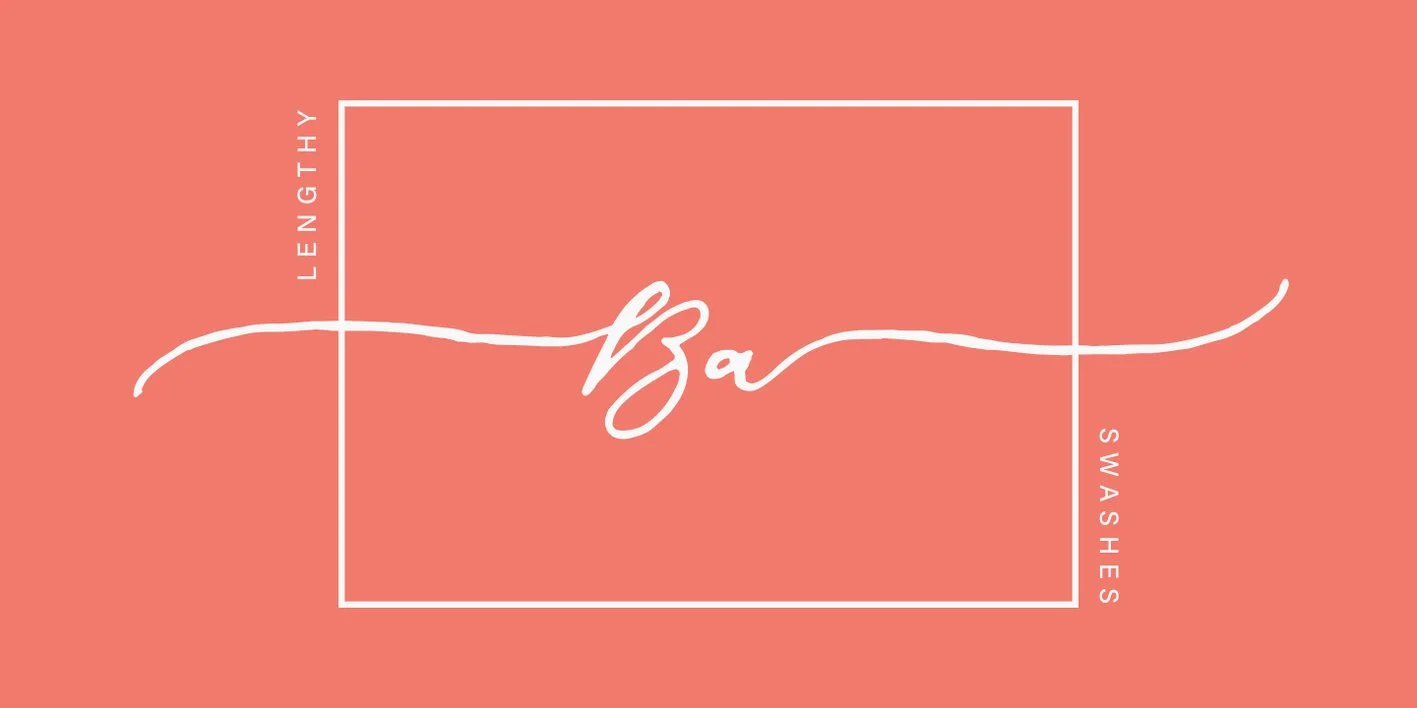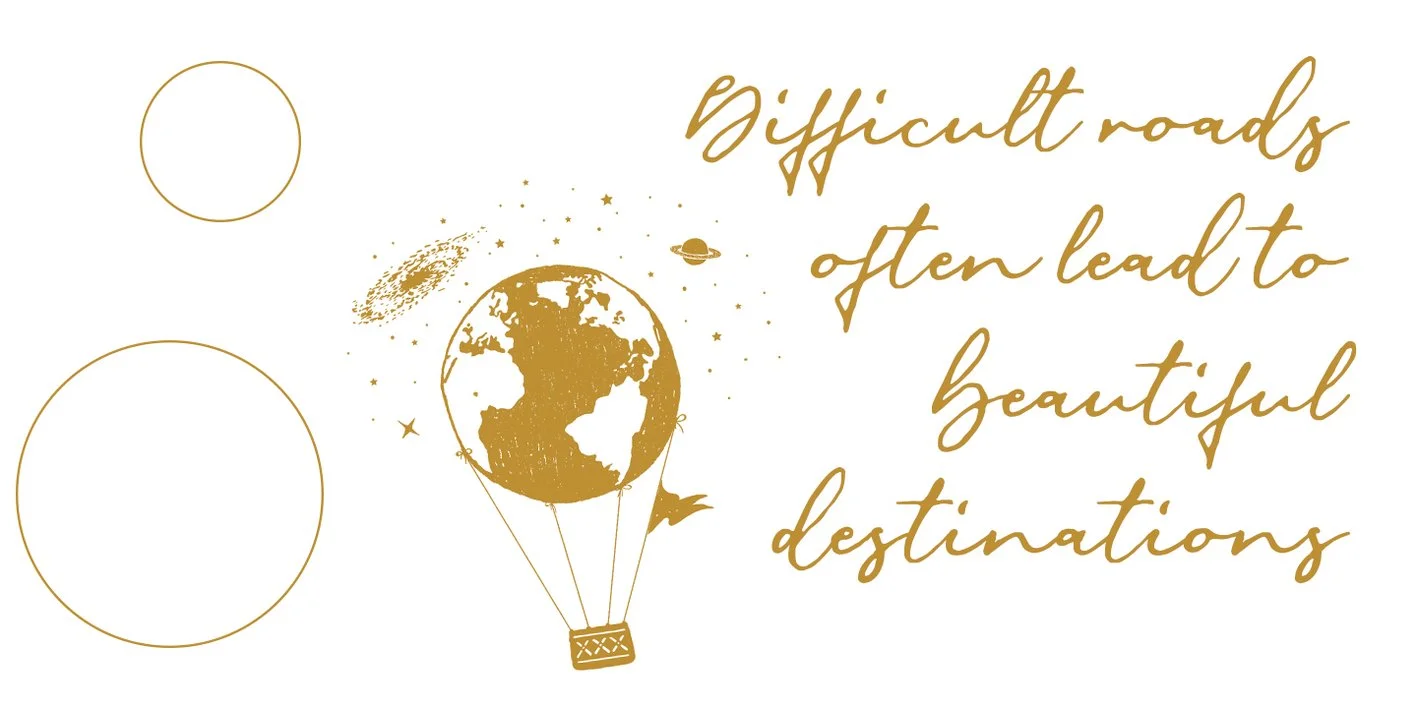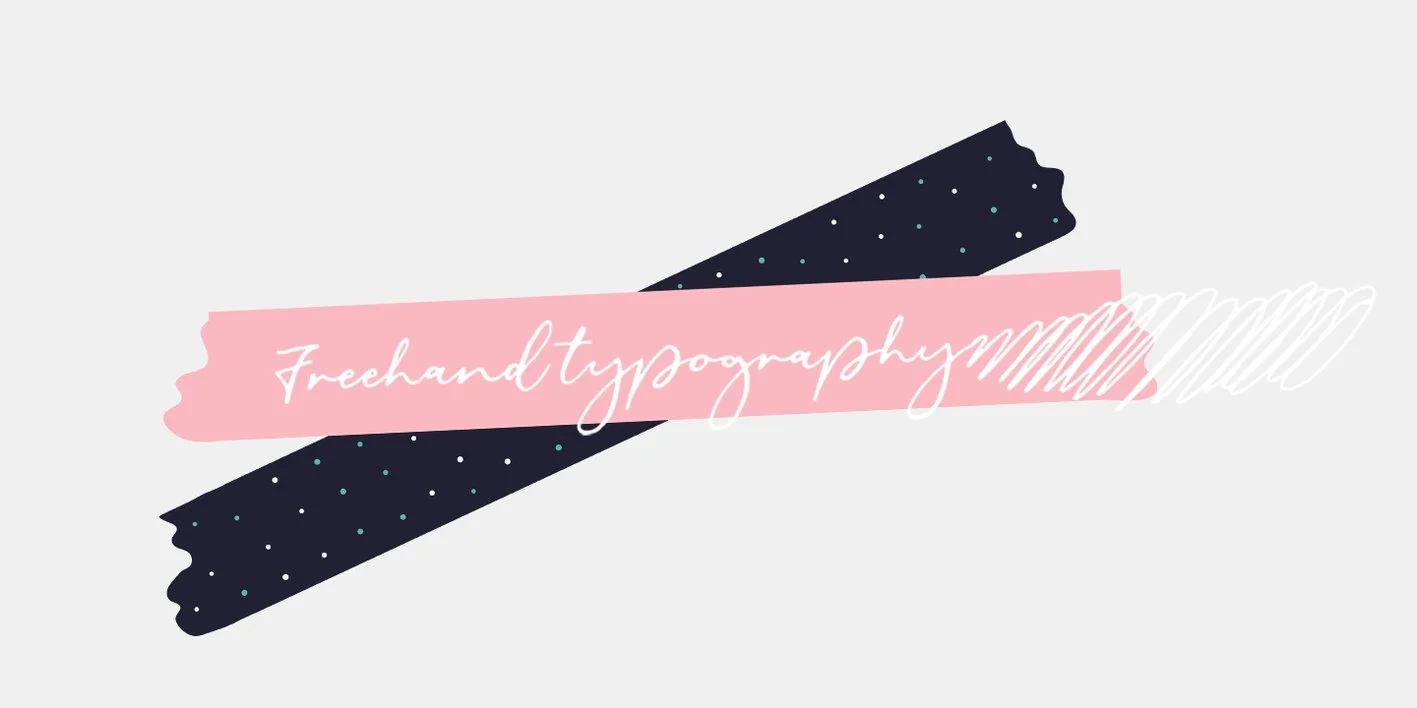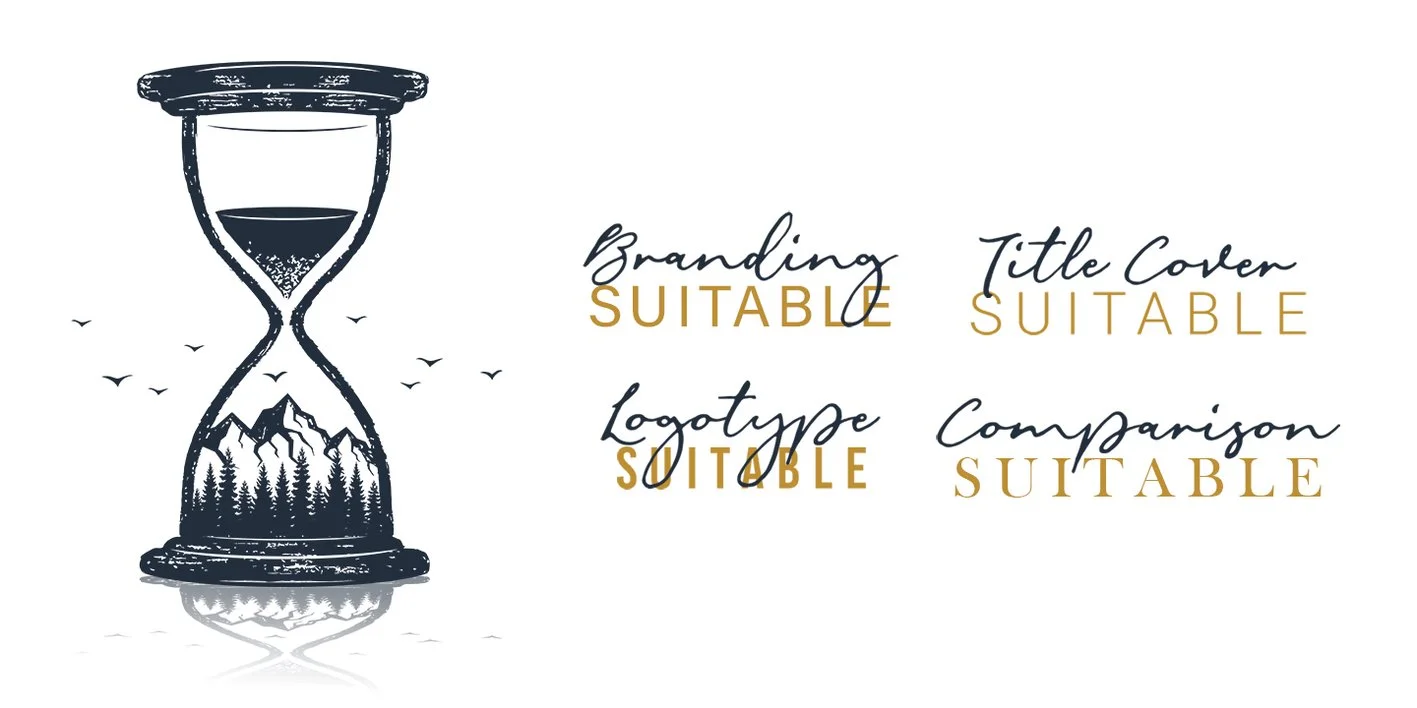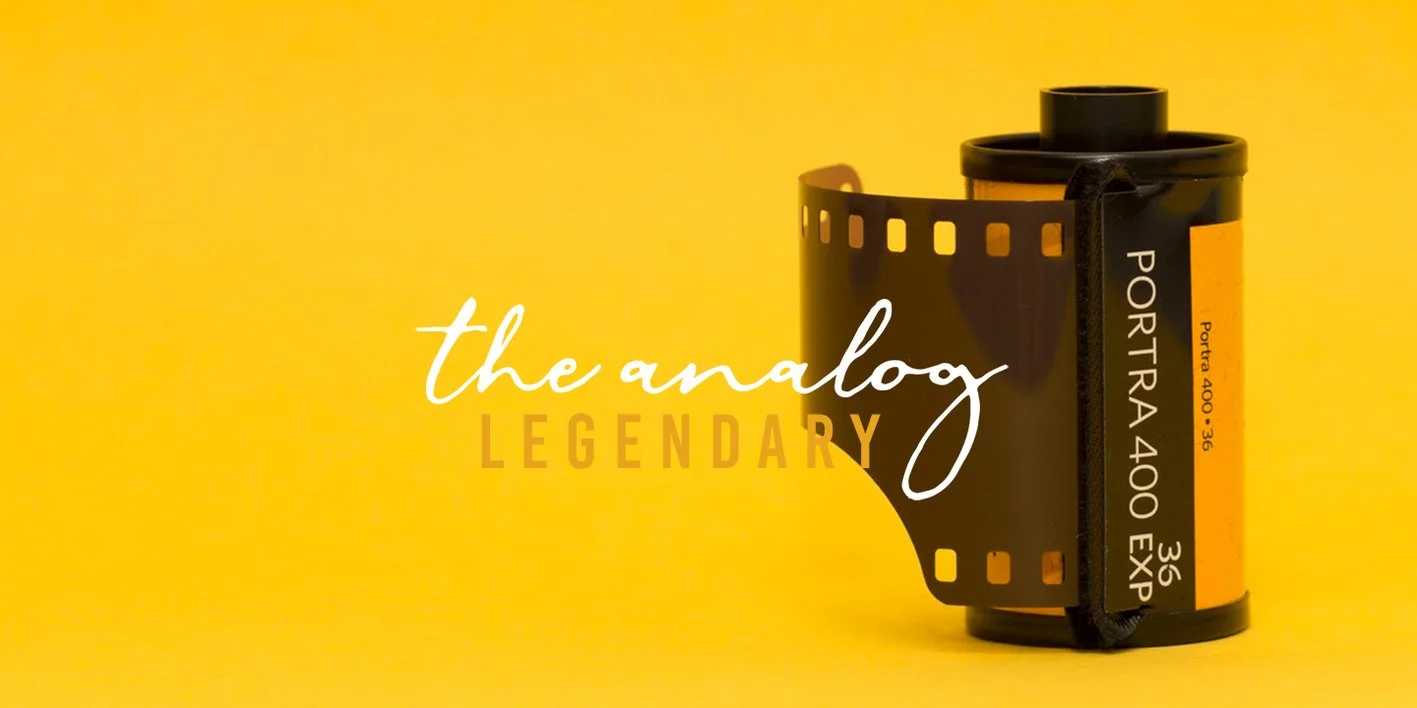
The Quiz Script Font
Typography shapes perception at a subconscious level. The Quiz Script leverages optical balance across all weights to make every composition feel considered. The typeface brings an elegant, calligraphic sensibility to a broad range of creative disciplines, with consistent type colour across continuous text that holds up whether the work is print-first or screen-first.
In practice, The Quiz Script proves particularly effective for advertising campaigns, product labels, greeting cards, signage systems, fashion editorials. Designers reaching for it find that the type decisions feel resolved rather than laboured — a useful quality when client timelines are tight.
The range of applications extends to editorial layouts, feminine branding, perfume labels, bridal materials. That breadth is deliberate: the proportions and spacing were stress-tested across a wide range of mock briefs before the typeface was finalised.
Pairing The Quiz Script with a contrasting serif or a neutral grotesque gives mixed-format layouts a clear visual grammar without requiring constant size adjustments to establish hierarchy.
Graphic designers working on identity systems find The Quiz Script a reliable choice for projects that demand both personality and restraint. The design avoids the self-conscious quirkiness that dates quickly, settling instead for considered distinctiveness that holds up over time.